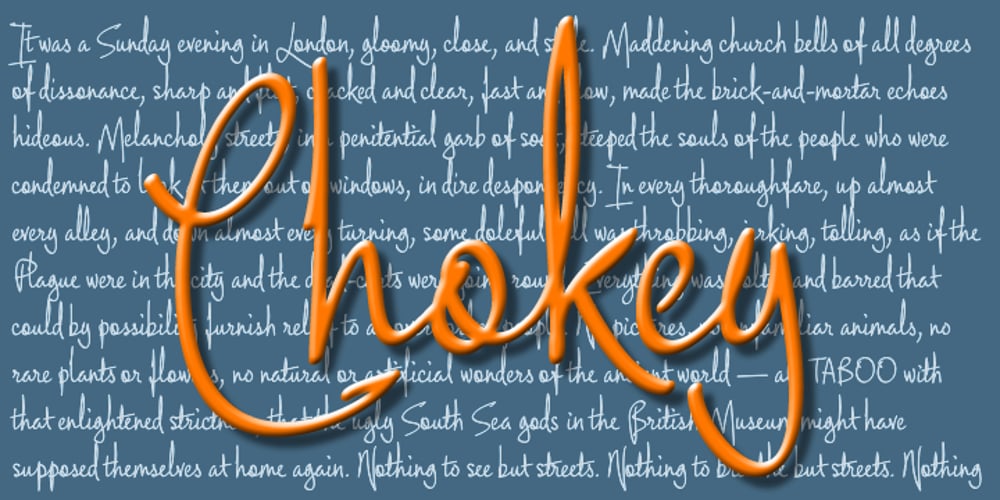
Chokey Pro
Chokey Pro font
Chokey Pro Font Family was designed by Nicholas Garner and published by AVP. Chokey Pro contains 1 styles and family package options. Chokey Pro is a richly featured, multi-language, joined handwriting script with a host of uses. Derived from La Carte, Chokey Pro works well wherever a sense of informality and spontaneity is required. Use it for menus and wine lists, newsletters, recipes – even poetry. The idea was to create a stylish but legible script that would handle fairly sizeable chunks of copy. With 500 alternative letters (including over 100 combinations), a full range of small caps, superior characters and number variants, Chokey Pro will meet the demands of even the most sophisticated texts.